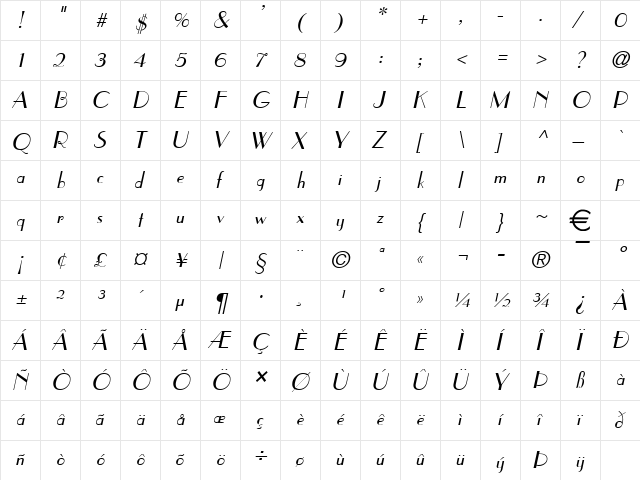
Paris Italic
Design Context for Paris Typeface
Paris is a composed and adaptable typeface that performs quietly and consistently across a wide range of design contexts. The dynamic lean of this cut emphasises speed and emphasis in any layout.
Pro Tip: Use Paris for emphasis, pull quotes, and subheadings where its slanted energy can add rhythm to the layout.